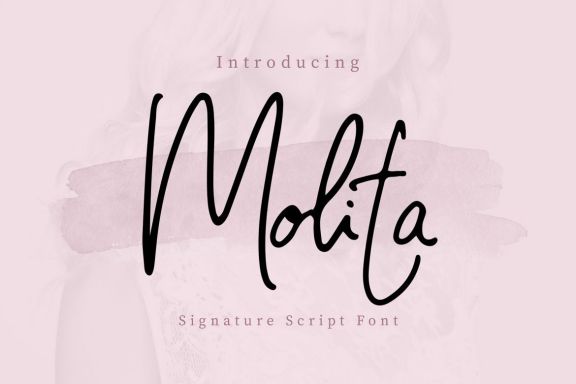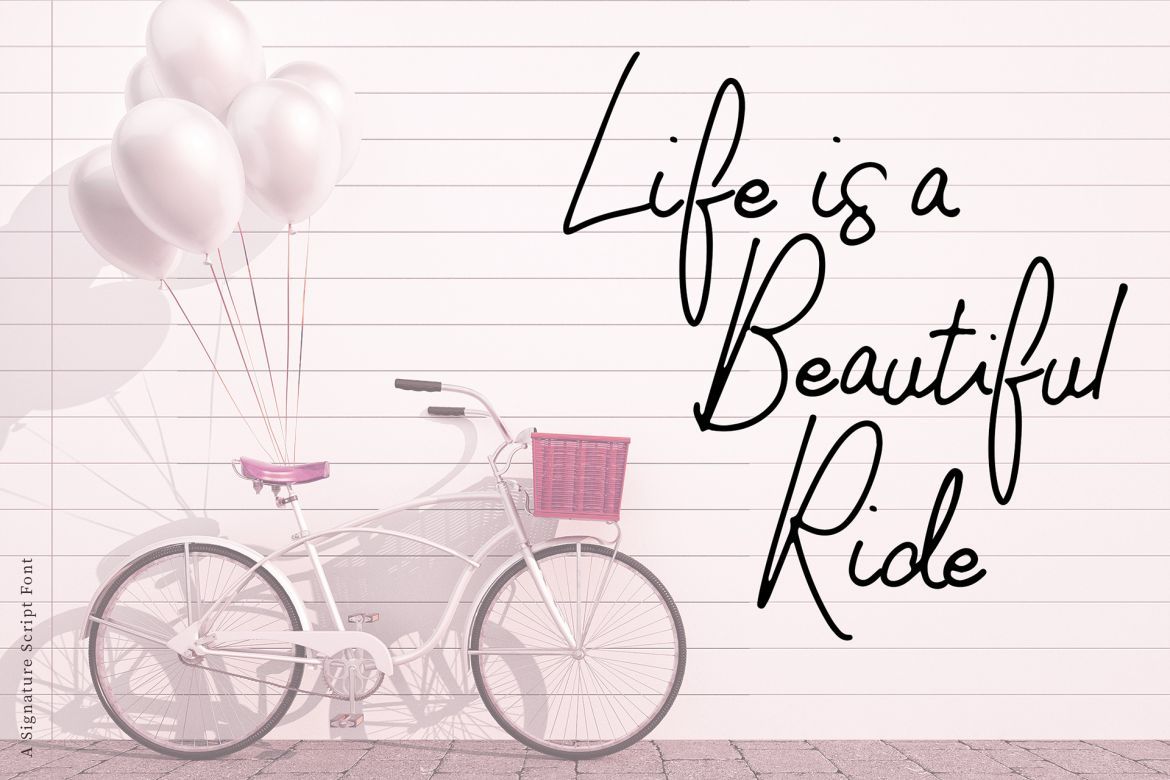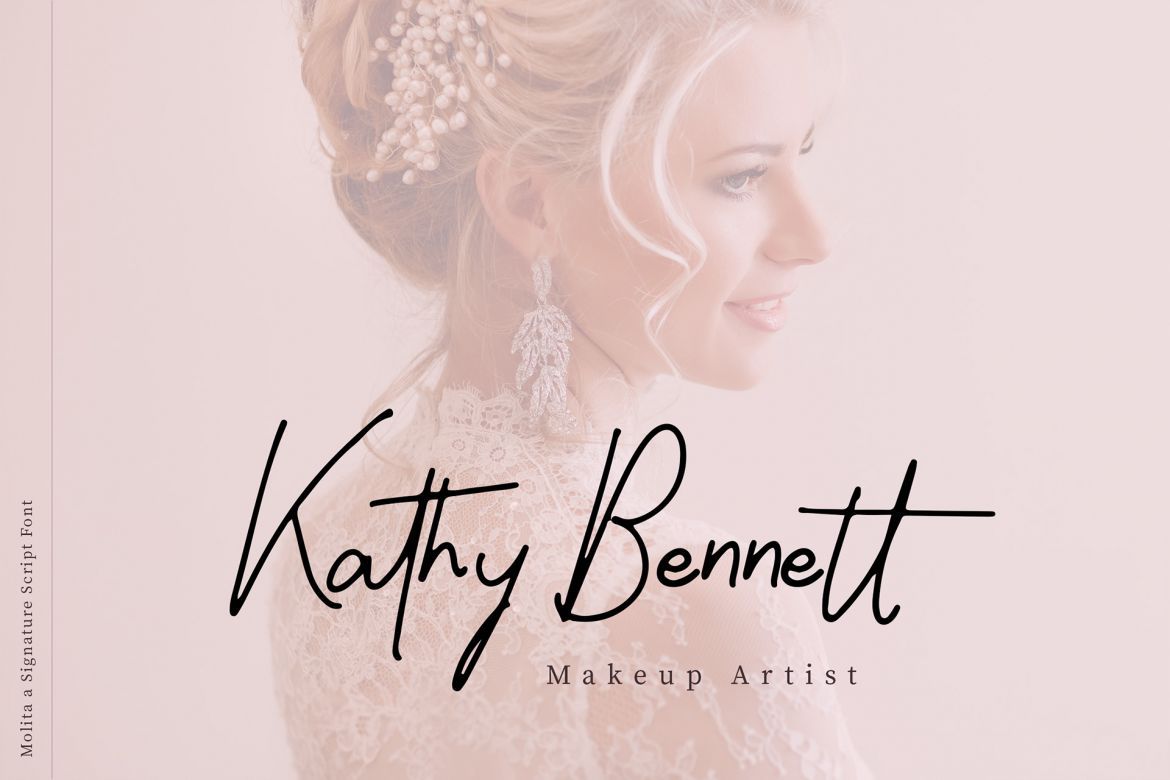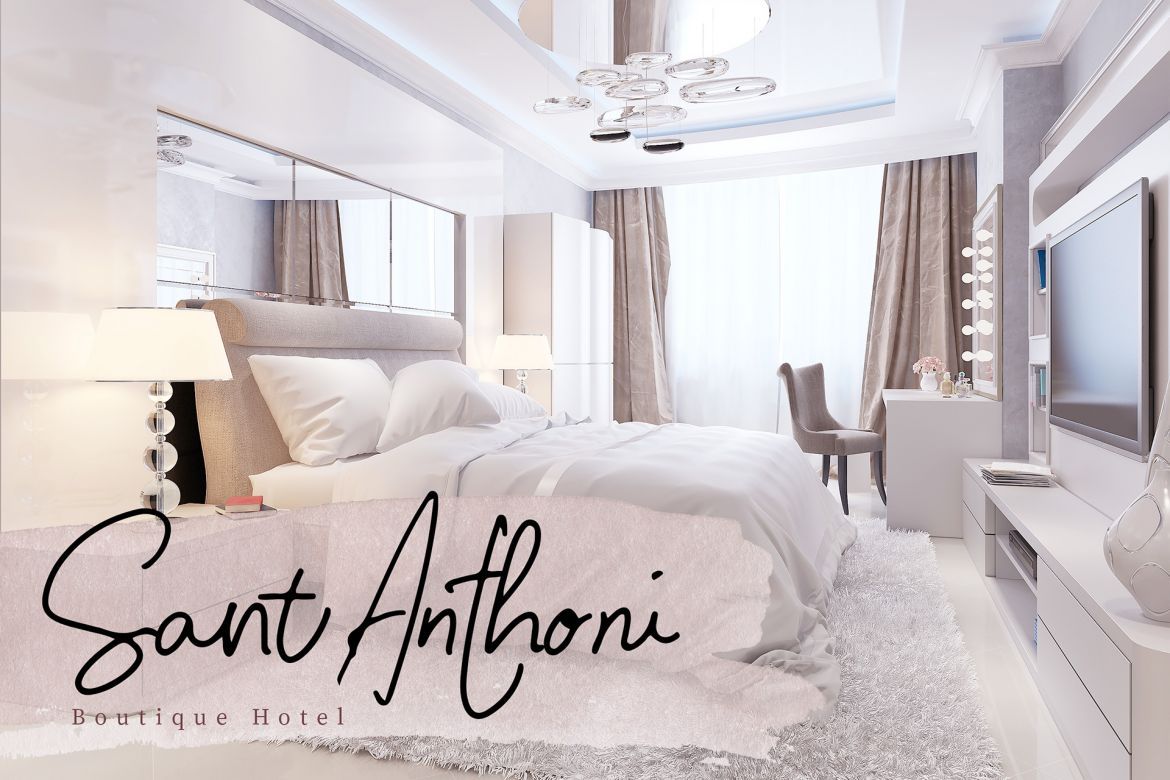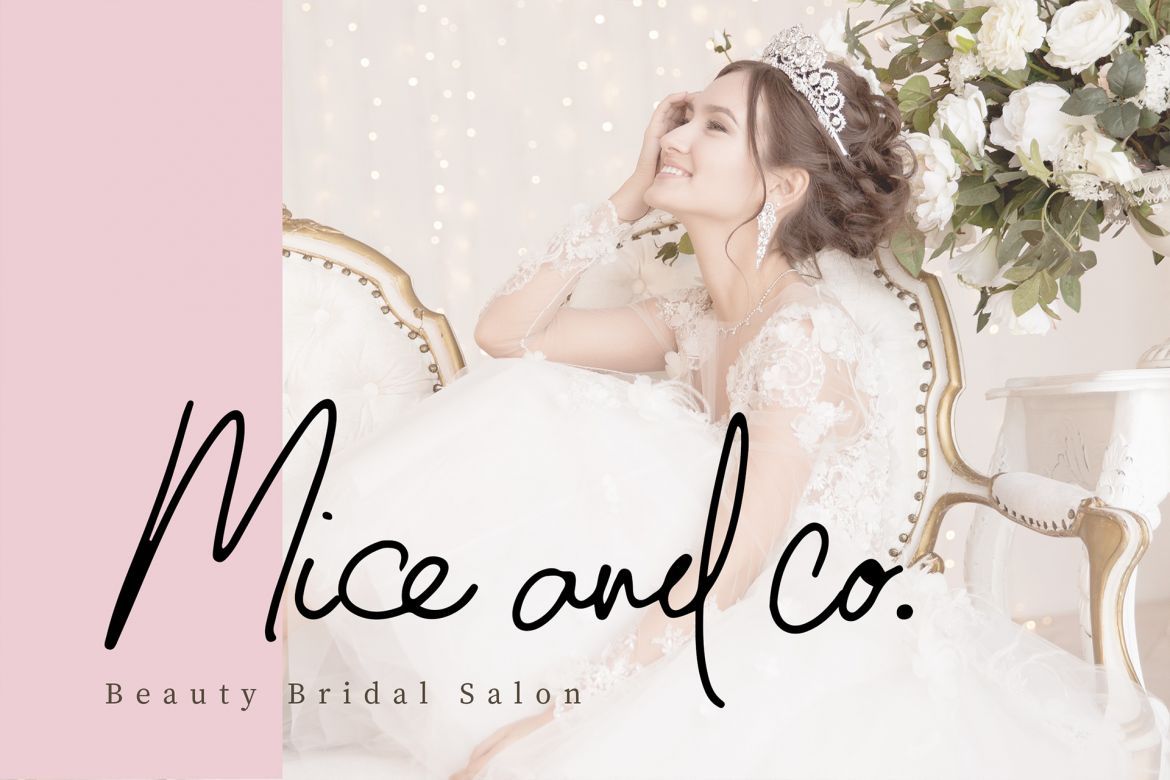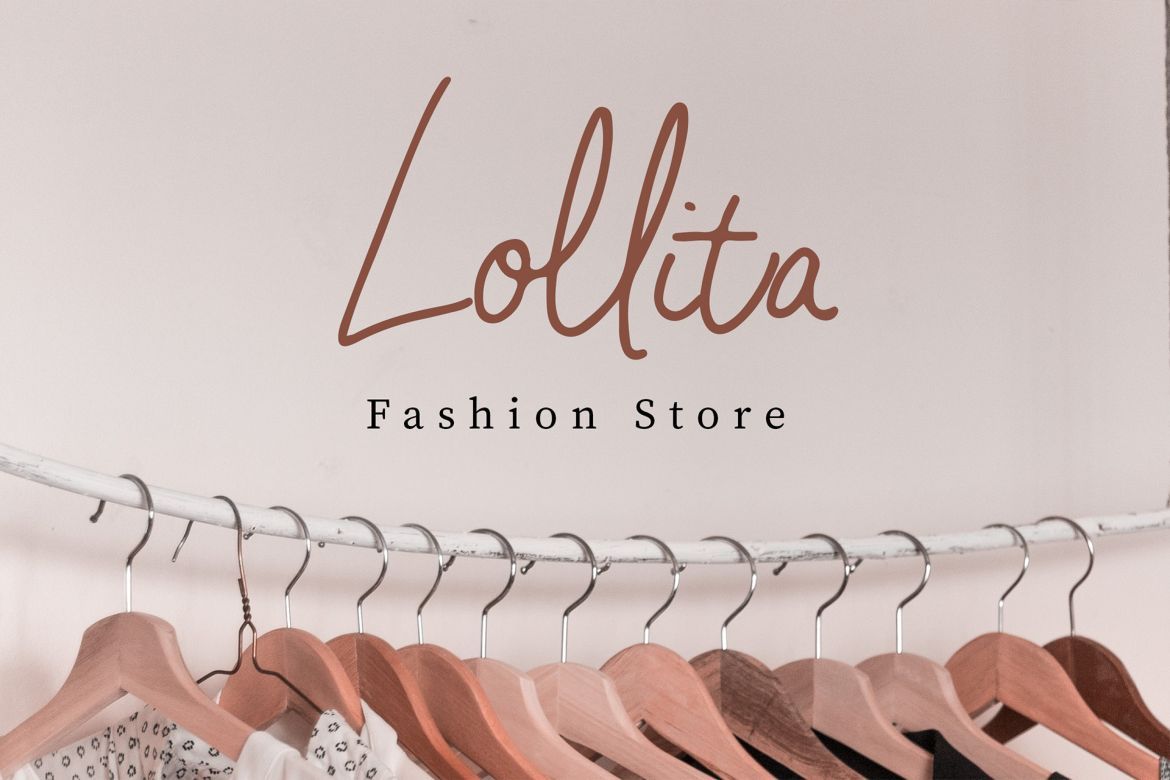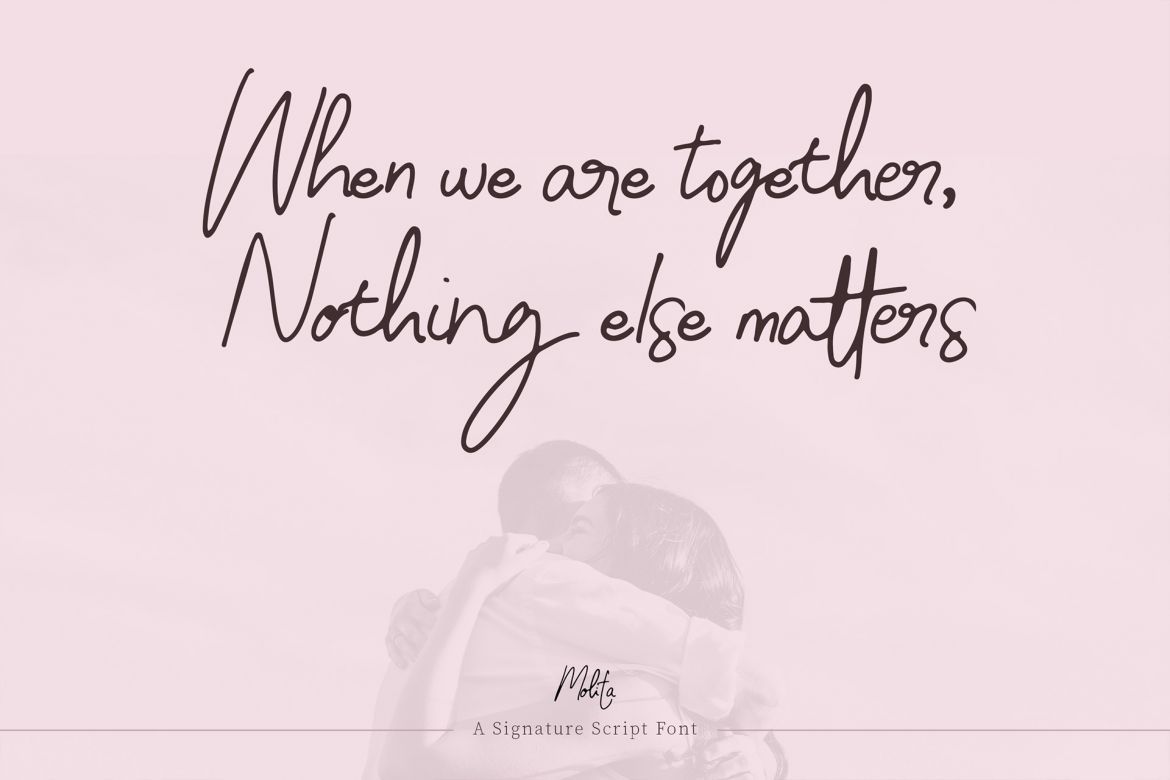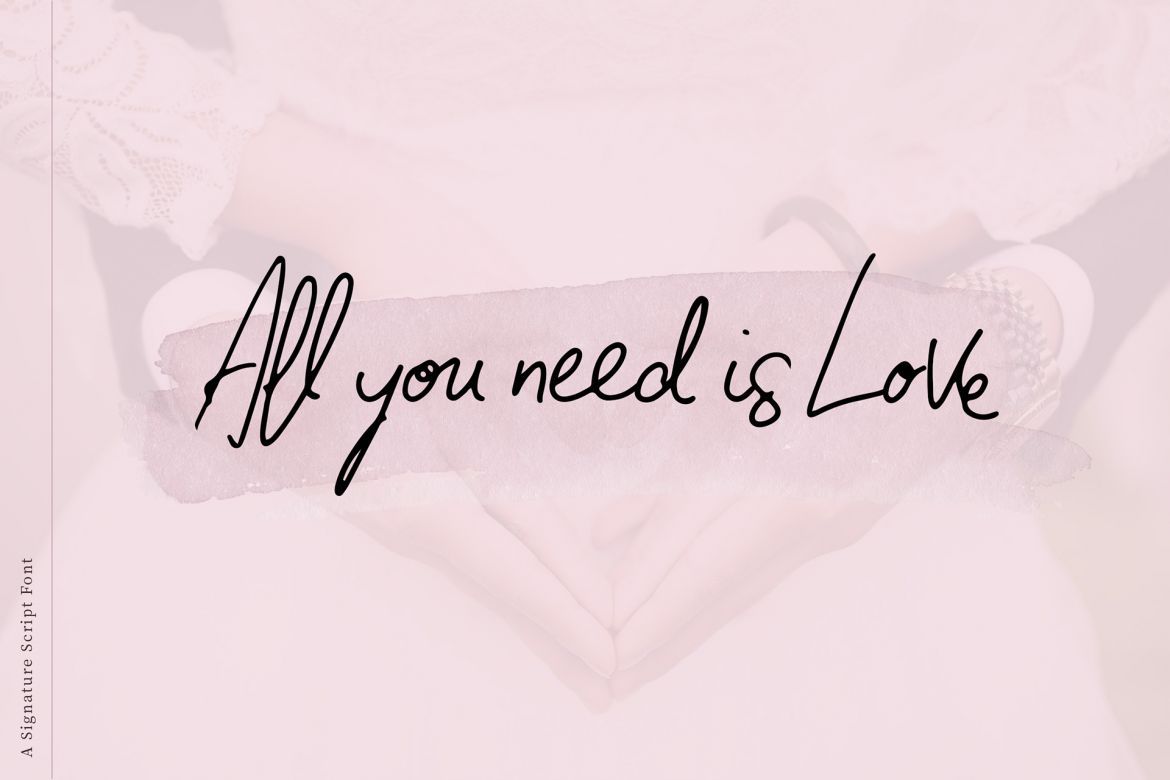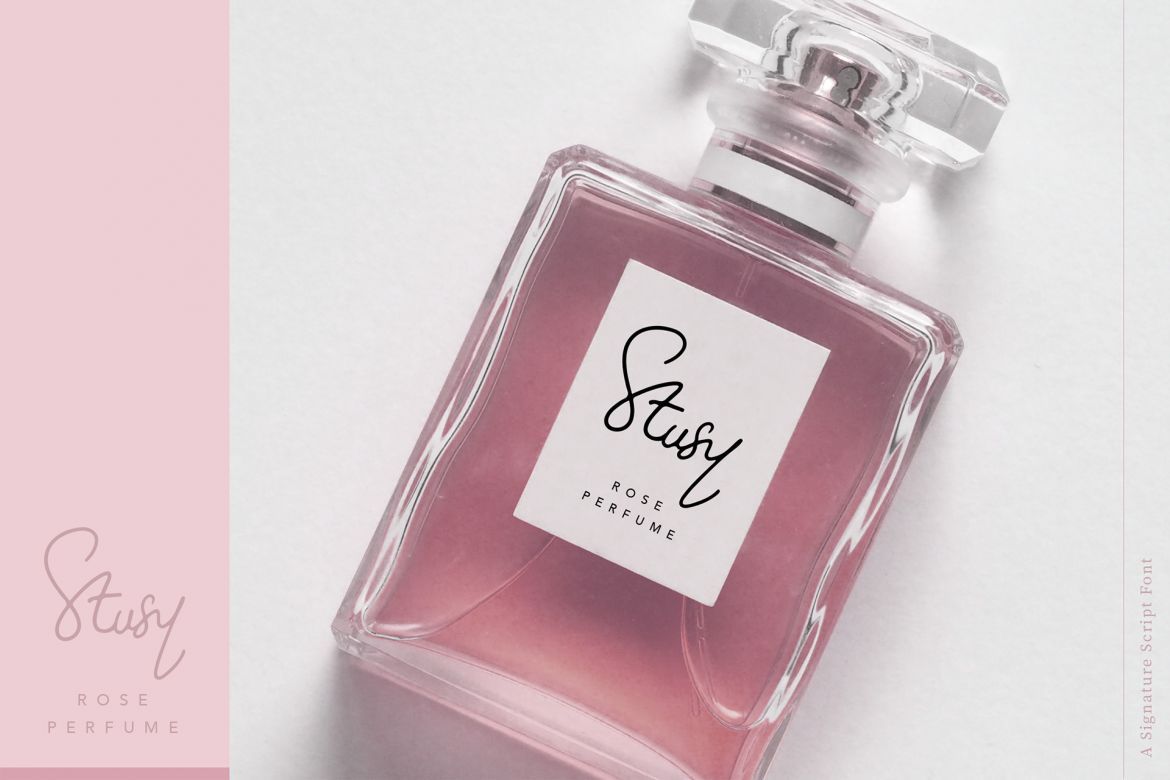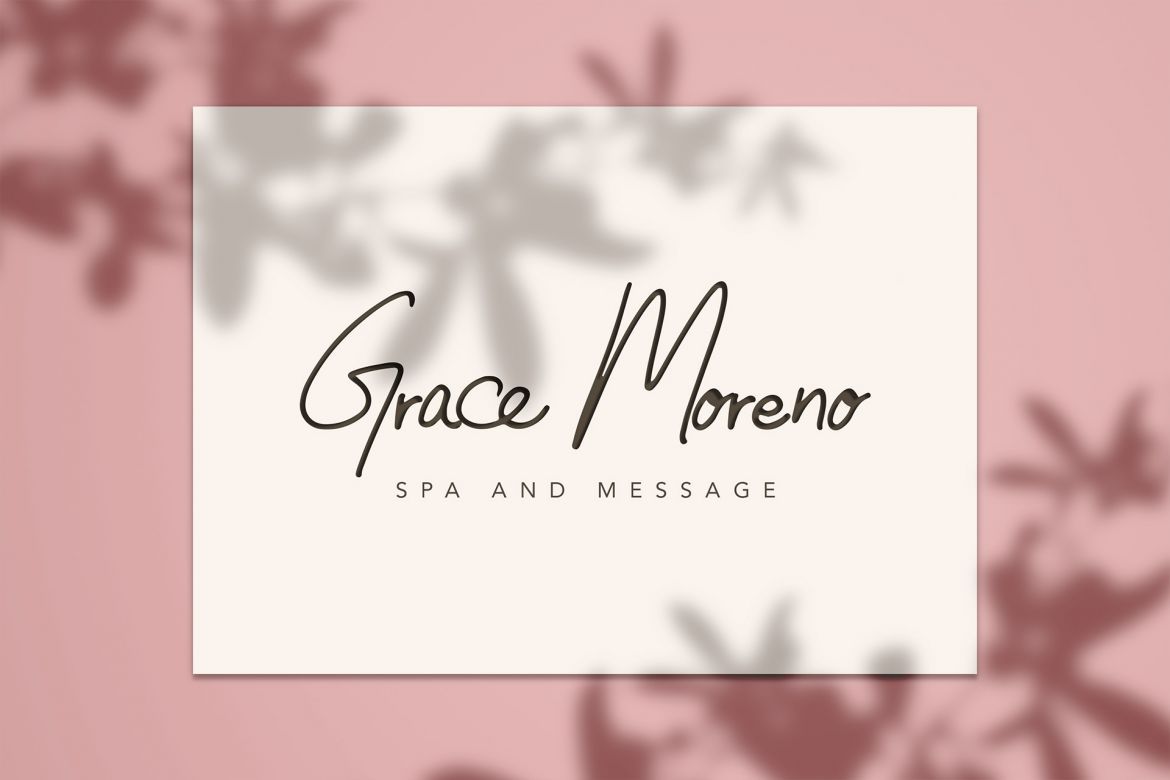
Molita Signature Font
A perfect signature font with an elegant feel. Molita is perfect for branding projects such as logo, presentation, and product packaging. Molita is also perfect for wedding and fashion themed or a stylish text overlay to any background image.
• 71 stunning ligatures
• alternative fonts
• numbering and punctuation
• uppercase & lowercase letters